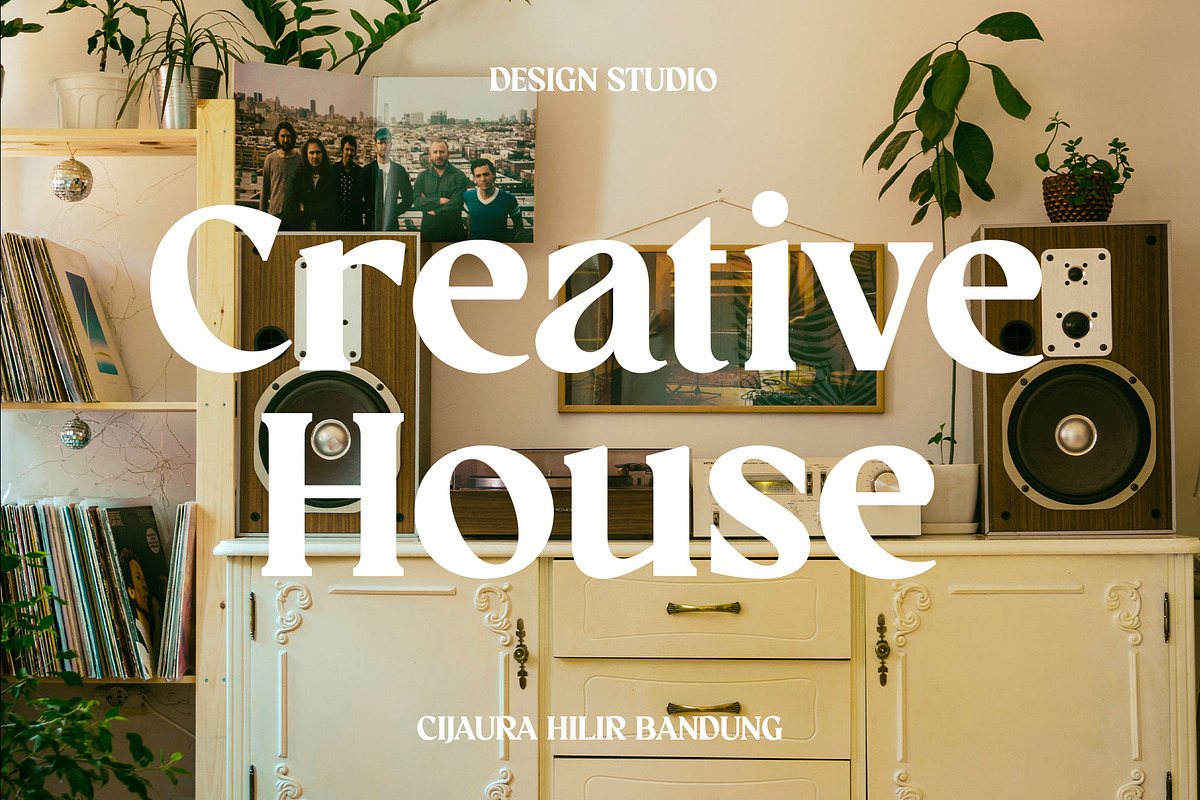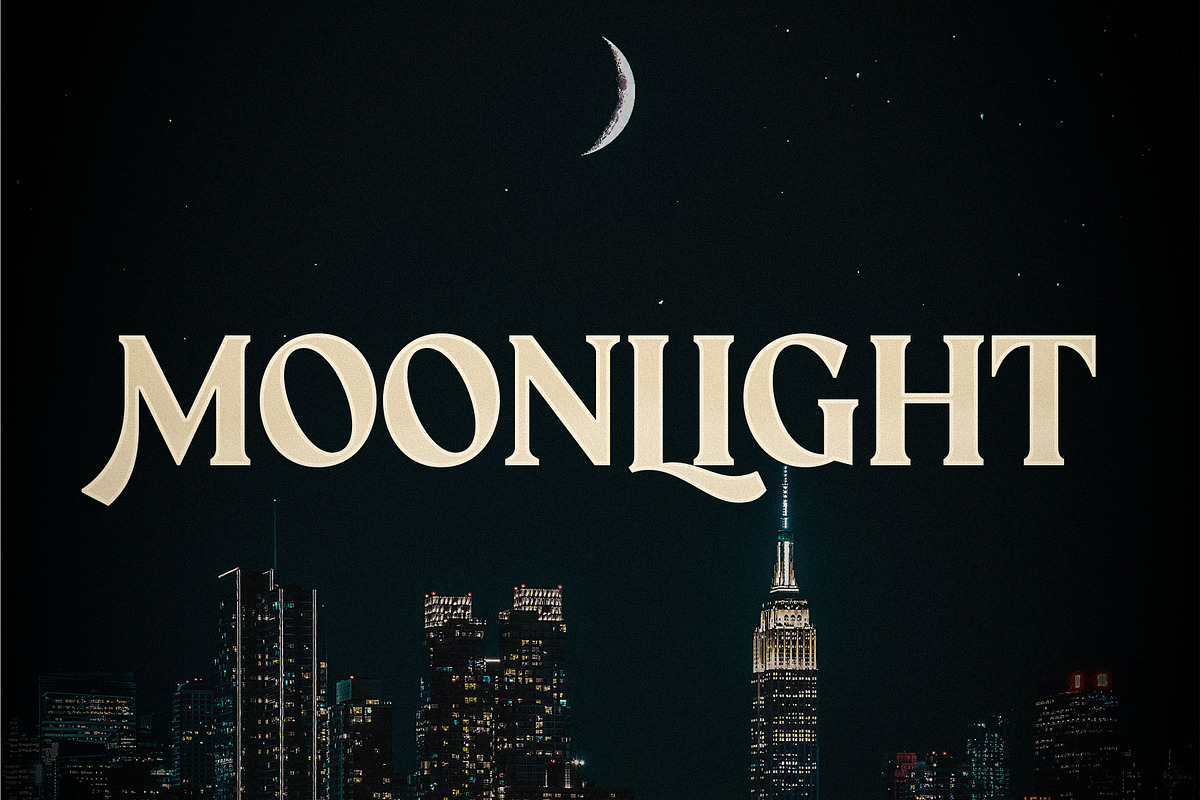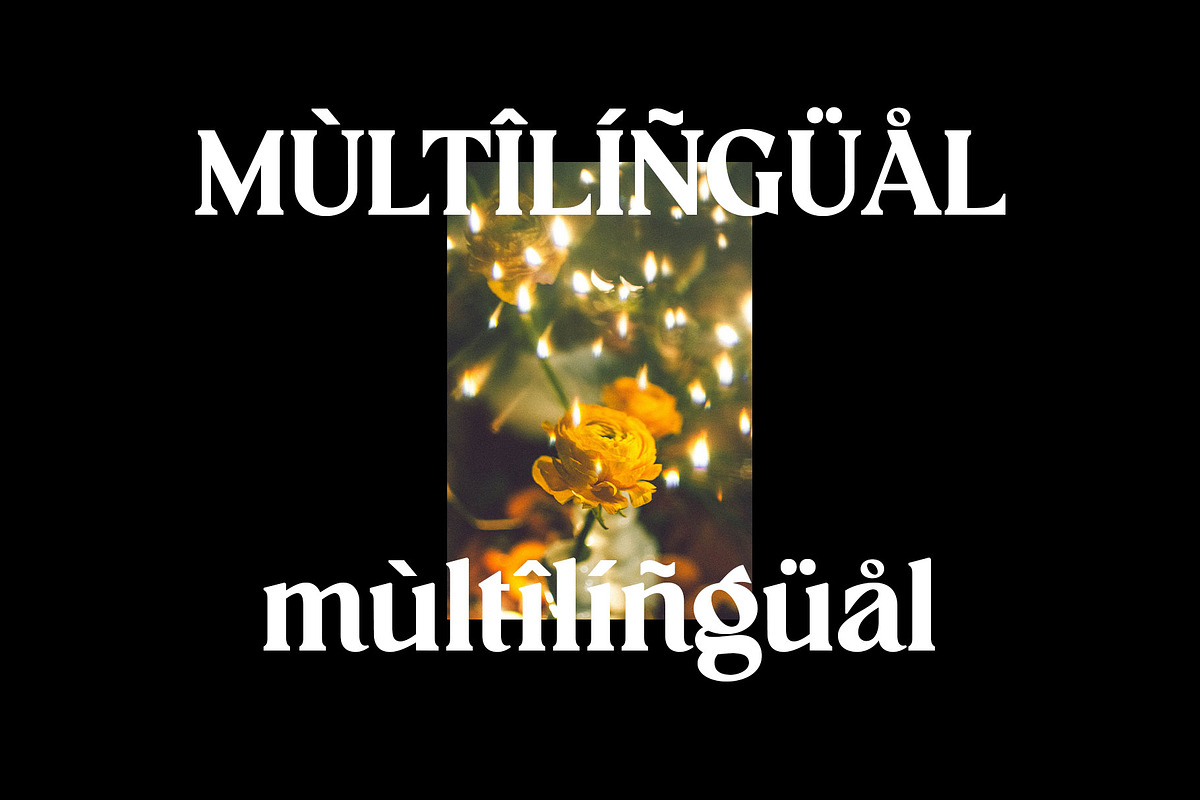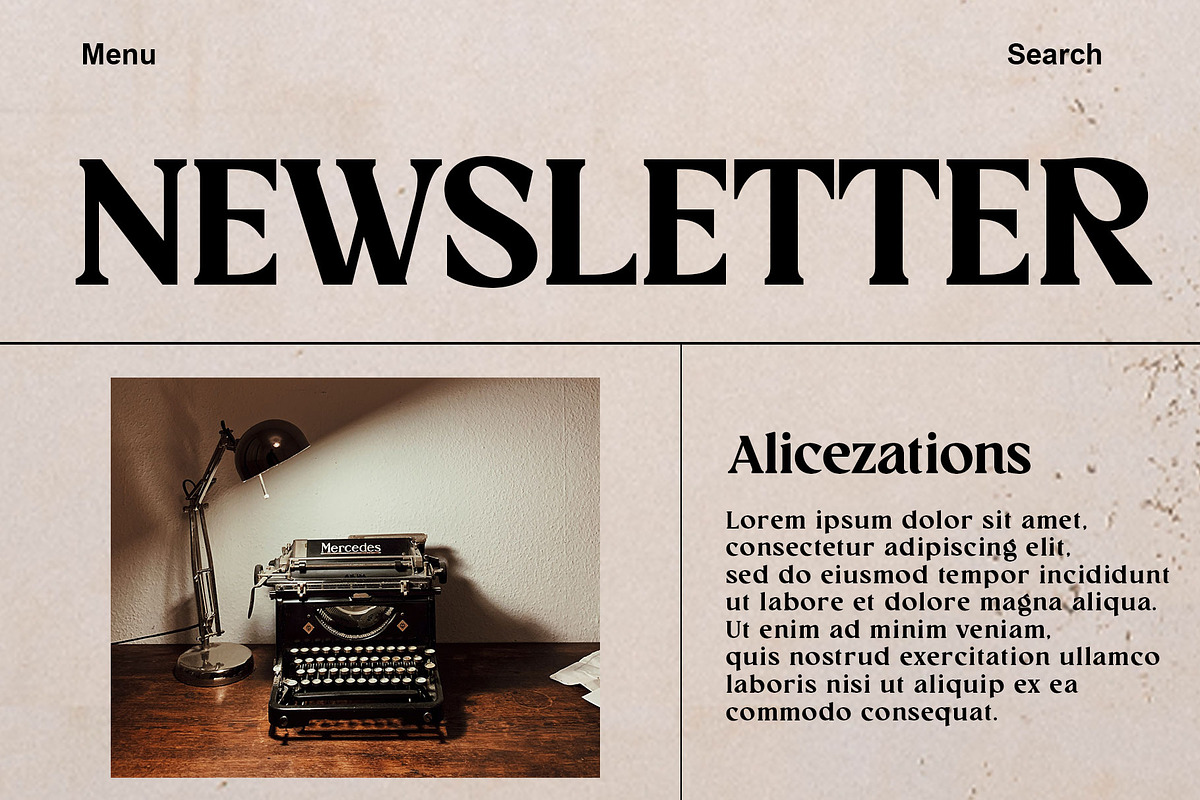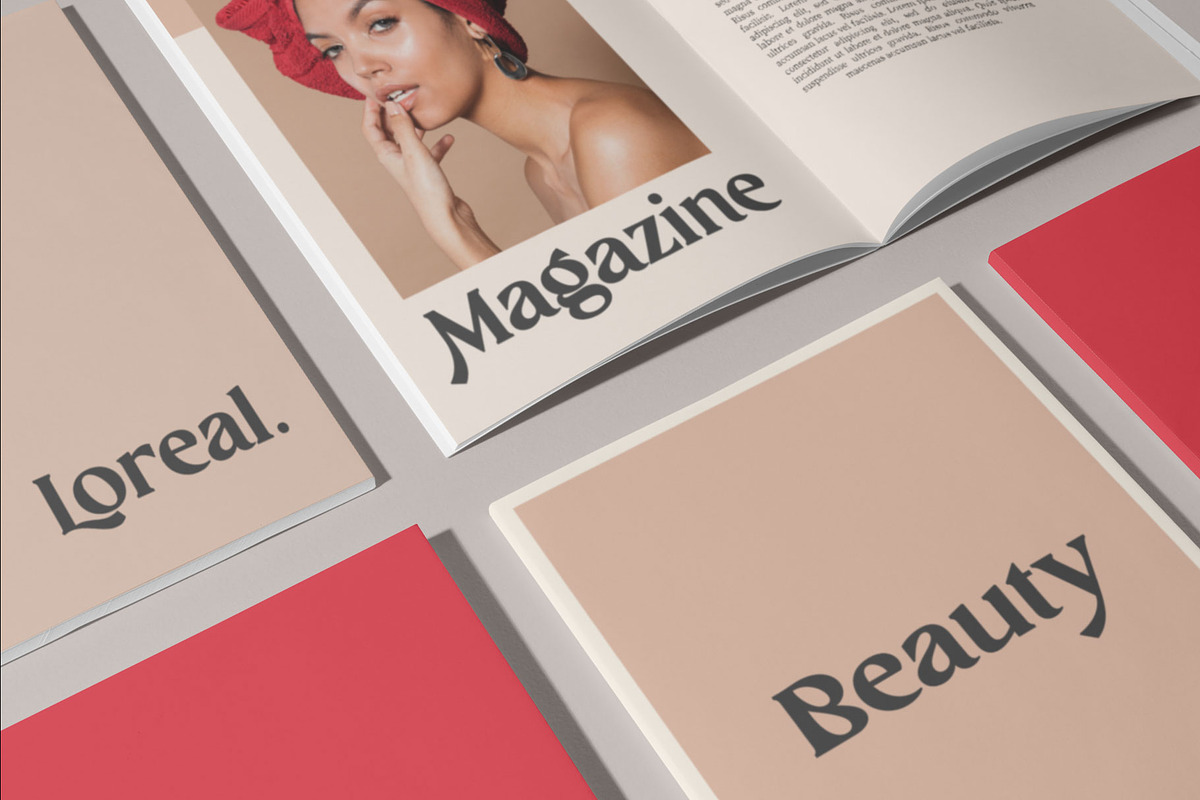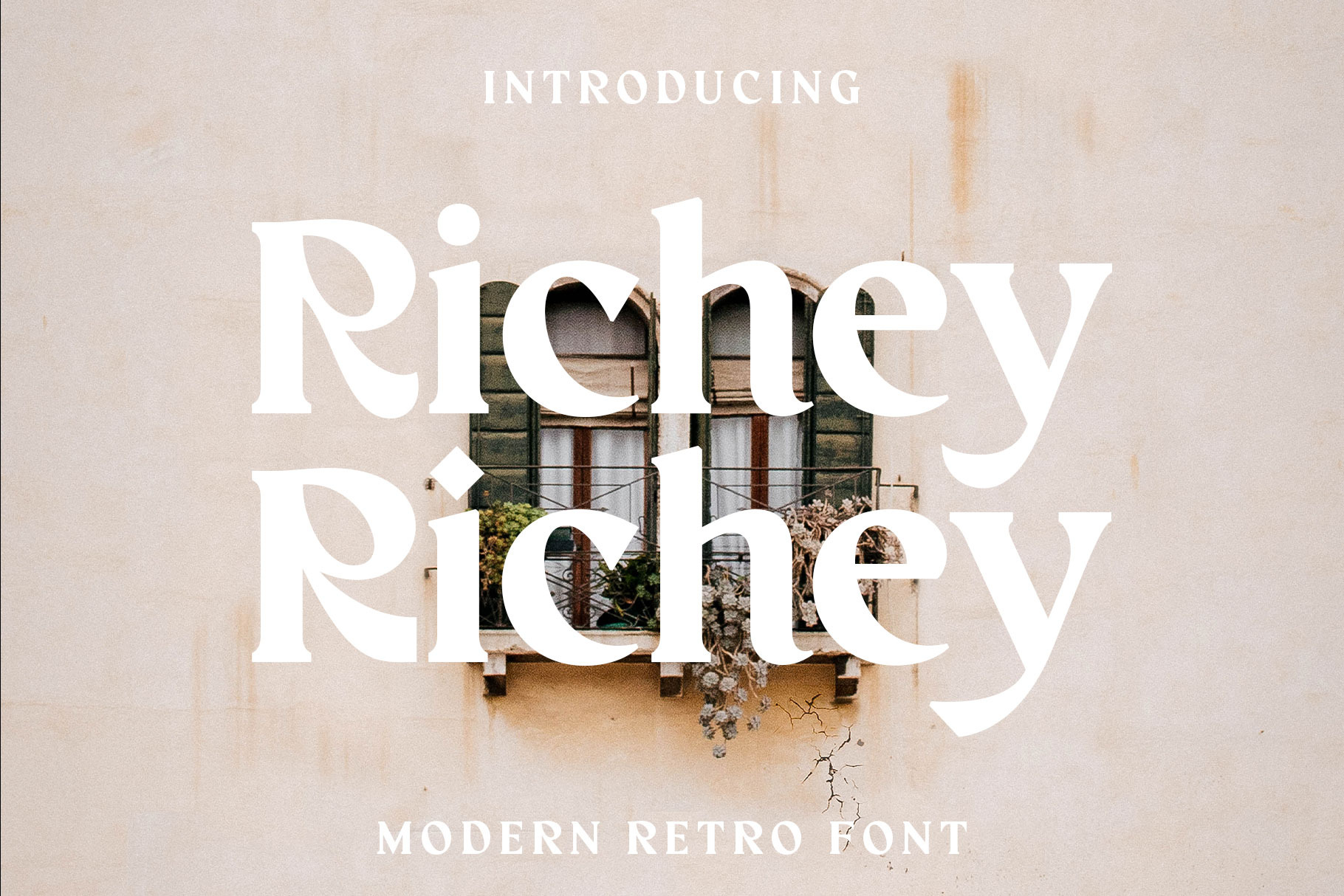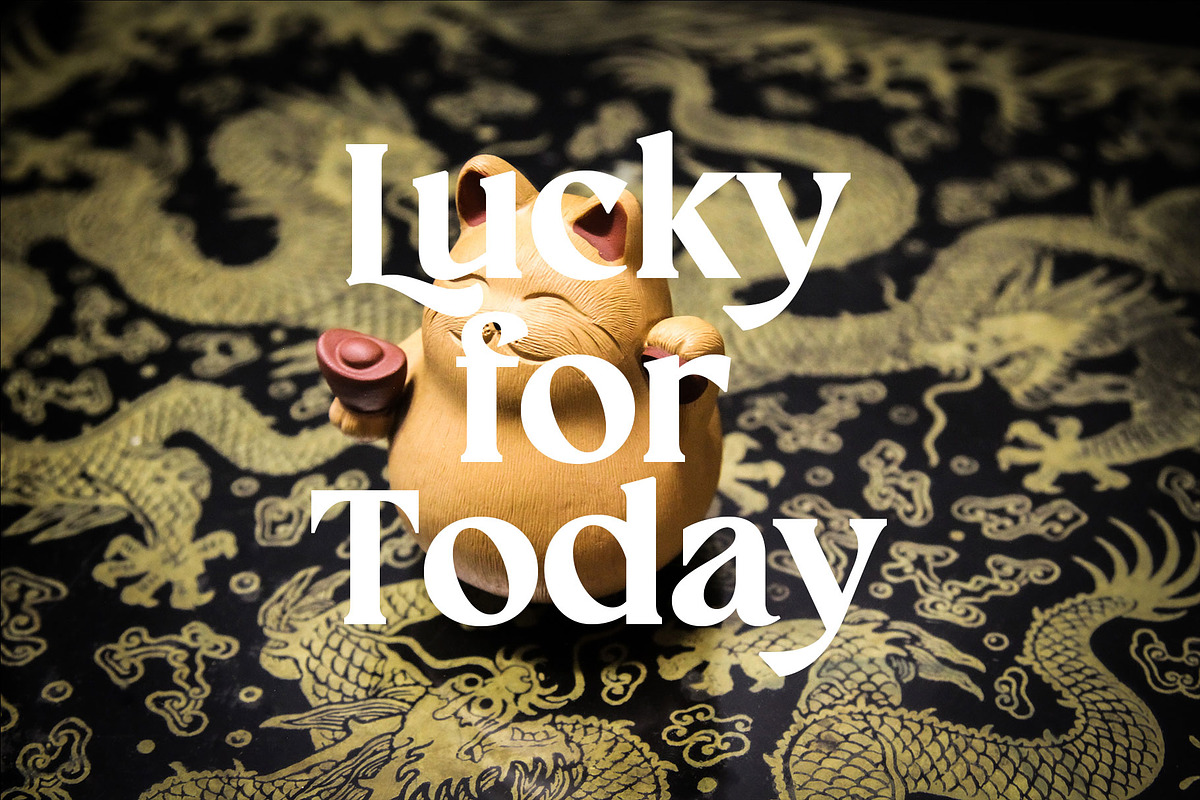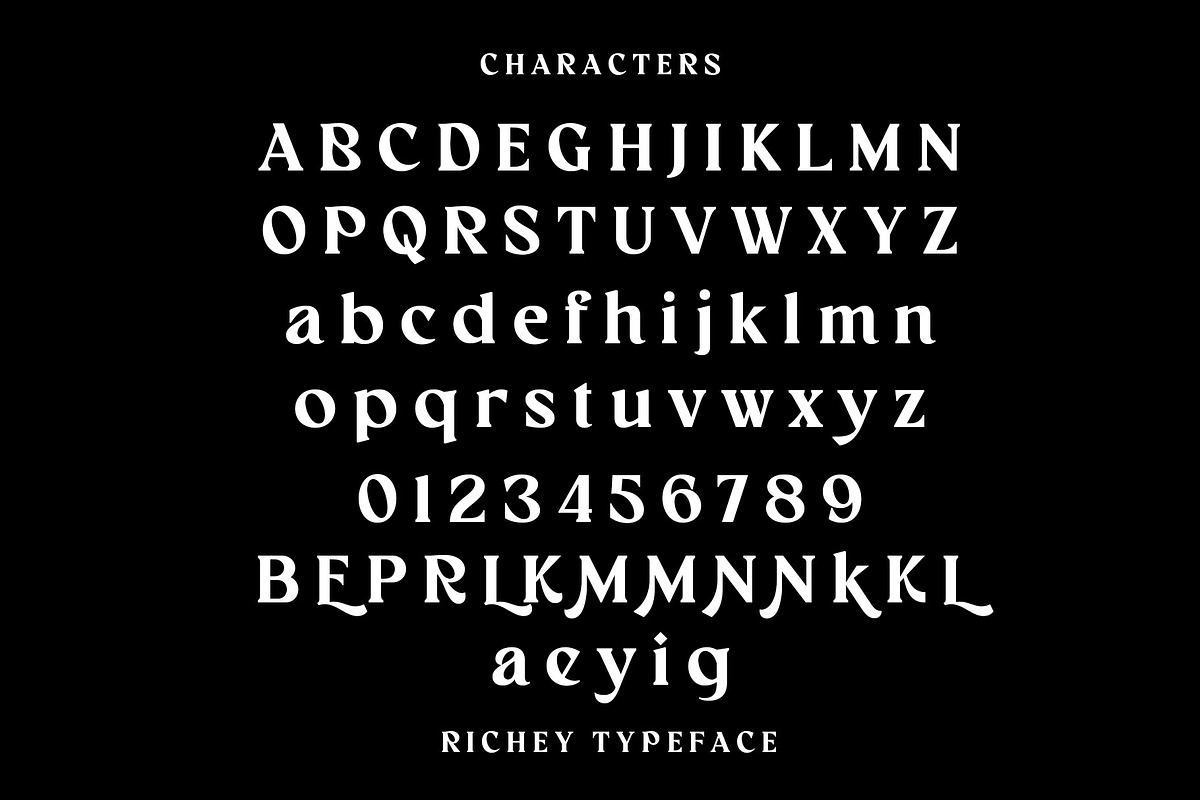
Richey Retro Font
Hello everyone, on this occasion we would like to introduce our newest product, which we named "Richey". back to vintage and classic styles. will really help your design look more classic and special.